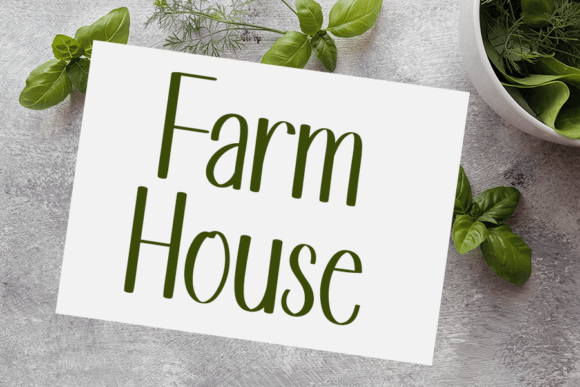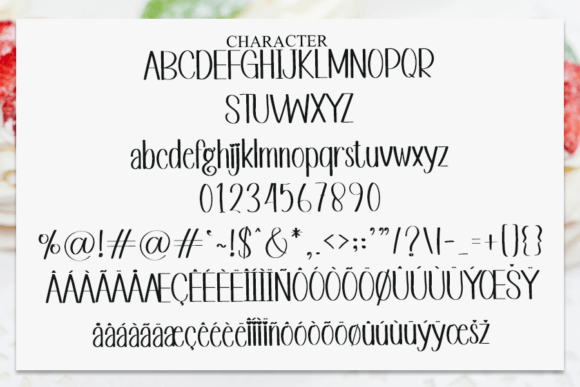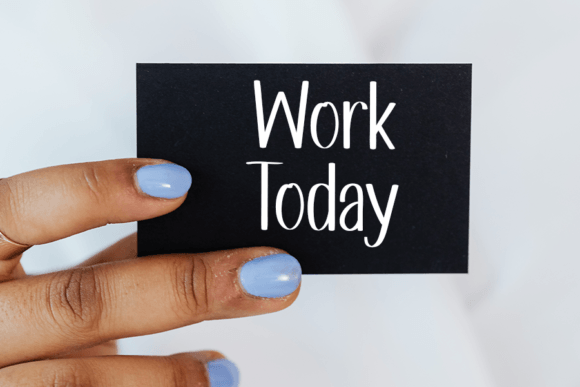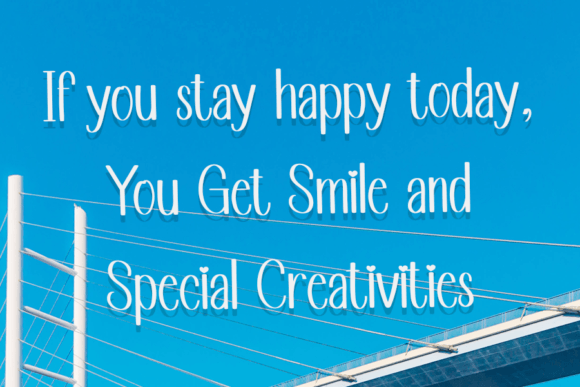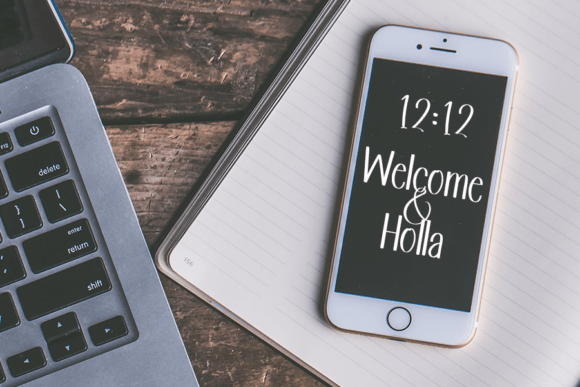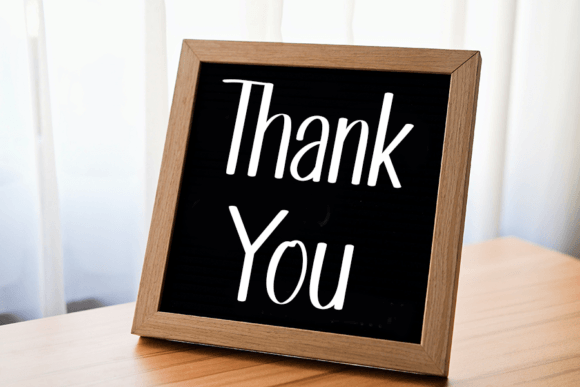
Introduction to Morning Mandala Font Font
Fonts play a crucial role in design, and the Morning Mandala Font font is a typeface that brings both character and versatility to any project. Whether you’re working on a branding project, a website, or a print design, the Morning Mandala Font font offers a unique style that can elevate your work.
| 📌 Font Name | Morning Mandala Font |
Morning Mandala is a gorgeous and elegant handwritten font.
Use it for any design projects that require a charming appearance This font is PUA encoded which means you can access all of the glyphs and swashes with ease.
Key Features of Morning Mandala Font Font
Why Choose Morning Mandala Font Font?
The Morning Mandala Font font is more than just a typeface – it’s a design tool that helps you communicate your message with style and clarity. Its unique character set and versatile design make it suitable for a wide range of applications, from elegant invitations to bold headlines.
With its carefully crafted letterforms and balanced proportions, the Morning Mandala Font font ensures readability and visual appeal across all mediums.
What makes Morning Mandala Font font special?
The Morning Mandala Font font stands out with its unique design, exceptional readability, and versatility across various design applications.